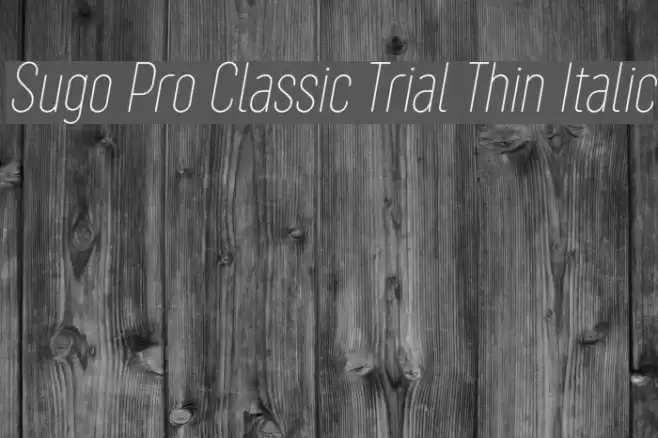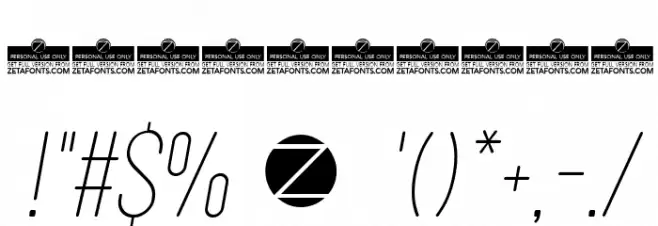
Sugo Pro Classic Trial Thin Italic Font
Sugo Pro Classic Trial Thin Italic Description
This font exhibits a sleek and modern aesthetic with its thin, elongated letterforms. The characters are slightly slanted, giving it an italicized appearance that adds a dynamic and elegant touch. The uppercase and lowercase letters maintain a consistent style, with clean lines and minimalistic design. The numerals and special characters follow the same thin and streamlined look, ensuring uniformity across all glyphs. This font's refined and sophisticated style makes it suitable for contemporary design projects.
A sleek, thin, and italicized font with a modern and elegant style from Uncategorized fonts.
- Proposed Projects: Ideal for fashion magazines, luxury branding, modern websites, and elegant invitations.